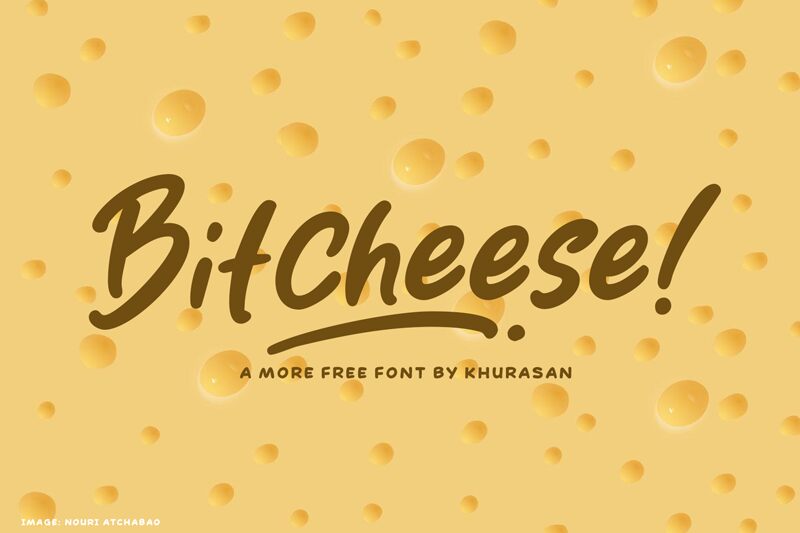
Bitcheese
Bitcheese is a playful and whimsical handwritten font designed by Khurasan. With its semi-light weight, this font exudes a lightheartedness that's perfect for creative projects ranging from children's books to social media graphics. Bitcheese is versatile enough to be used in a variety of designs, from greeting cards and invitations to logos and branding materials. Whether you're looking to add some fun and personality to your next project or simply want to showcase your creativity, Bitcheese is the perfect choice for anyone who wants their typography to stand out from the crowd.